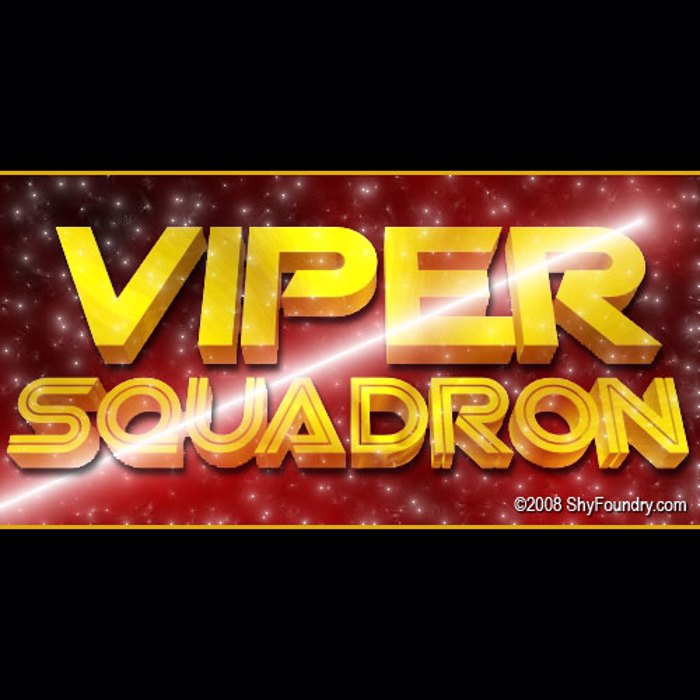
SF Viper Squadron Font
Solid Regular Style
Solid Italic Style
A ragtag typeface, SF Viper Squadron is one of our oldest font packages. This heavily battered and neglected design only has a limited character set remaining and is probably well overdue for a redesign